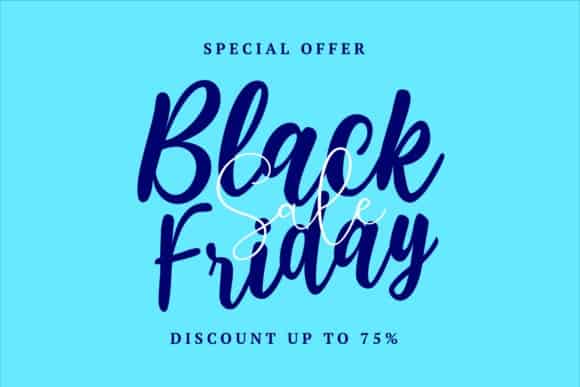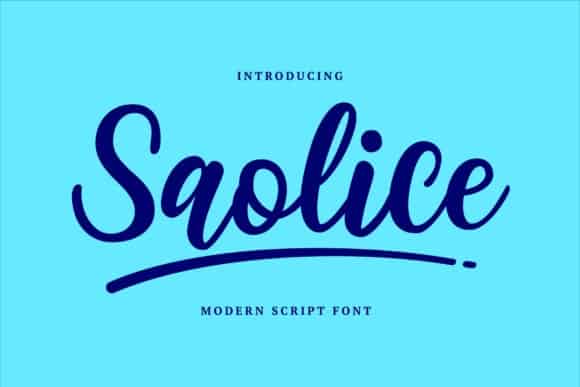
Saolice Script Font
Introducing Saolice Script Font. The idea came from incorporate some of Custom Signatures in digital projects that build a perfect strong personal branding impression. It’s designed and shared by brithostype . Saolice is a simple and incredibly sweet handwritten font. This font is perfect for many sorts of projects, like quotes, greeting cards, invitation cards, children books, and so much more.
Add Saolice to each of your creative ideas and notice how it makes them stand out!